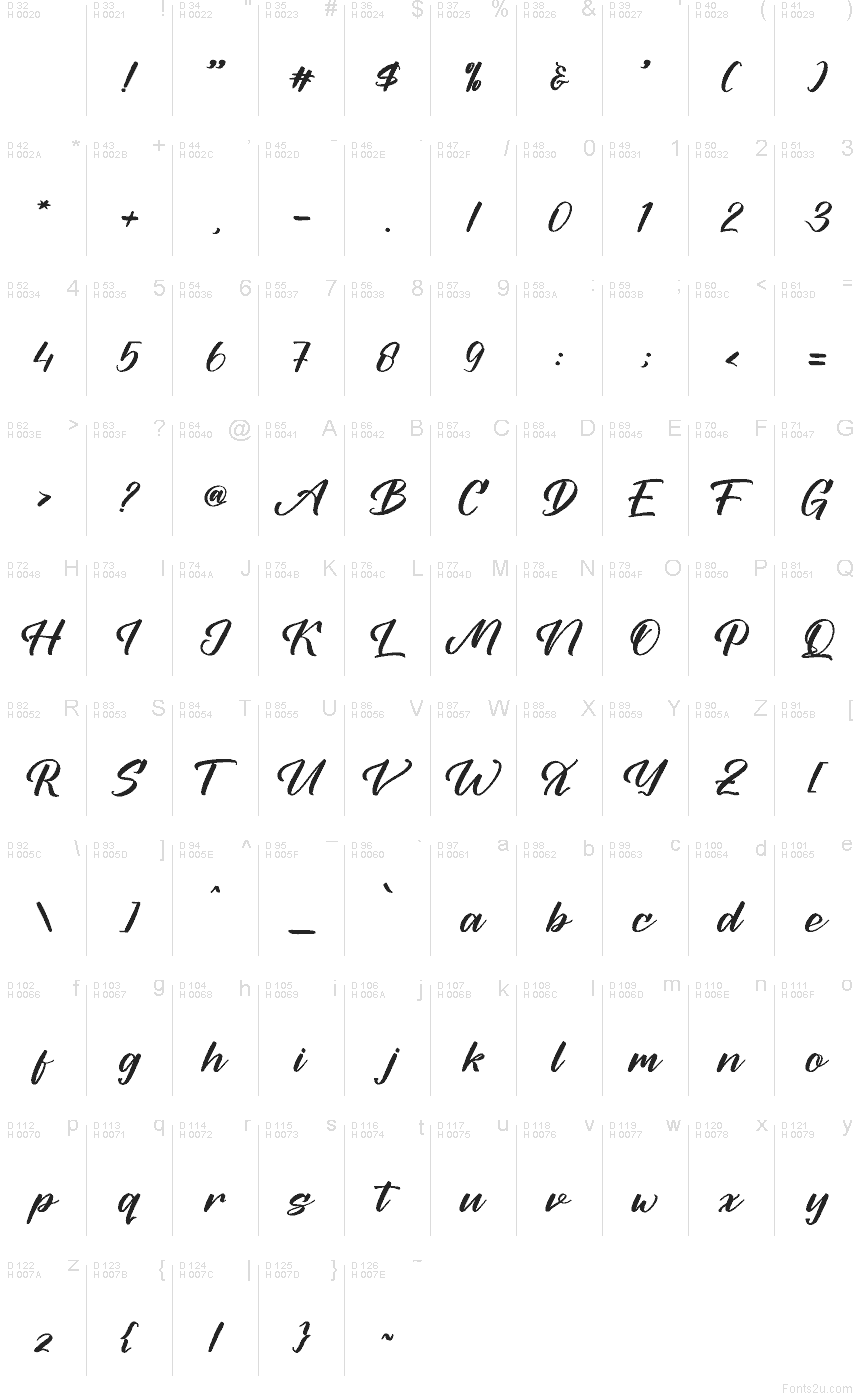
Nautical Prestige
Nautical Prestige font by Letterena Studios is a free calligraphy font that captures the feel of quick, confident ink on a smooth card. Its flowing script leans forward with graceful momentum, while the thick, velvety strokes and slender connections give each word a polished, boutique-quality finish. There’s just enough flourish to feel luxurious without slipping into fussiness, so your message stays legible and refined at any size.
Using Nautical Prestige for wedding invitations, save-the-dates, logos, product labels, social media signatures, and upscale packaging instantly adds a sense of handcrafted elegance. This free font shines as the hero name or headline, especially when paired with a clean sans serif for body text to keep layouts balanced and readable.